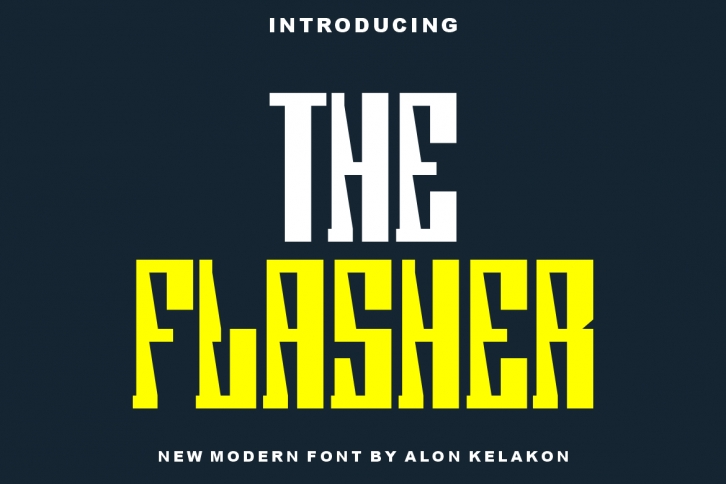
The Flasher is a unique slab serif font ready to use for your design like labeling, clothing, movie scenes, poster, movie title, gigs, album covers, logos, and much more.